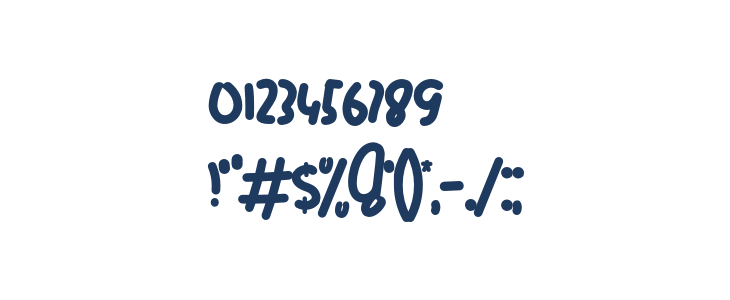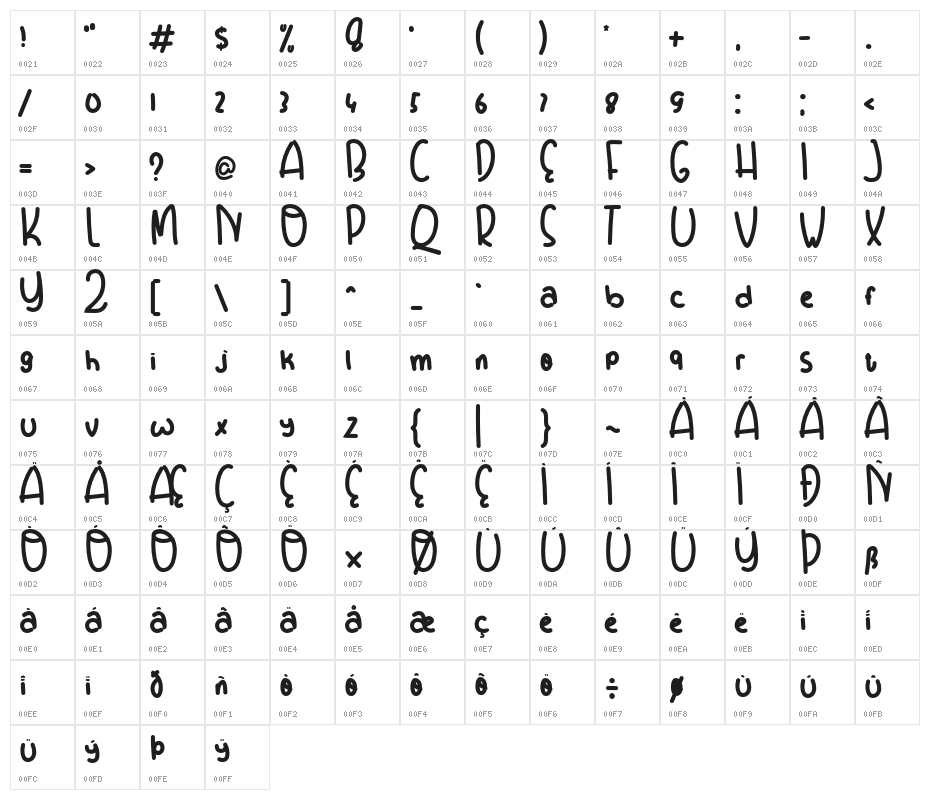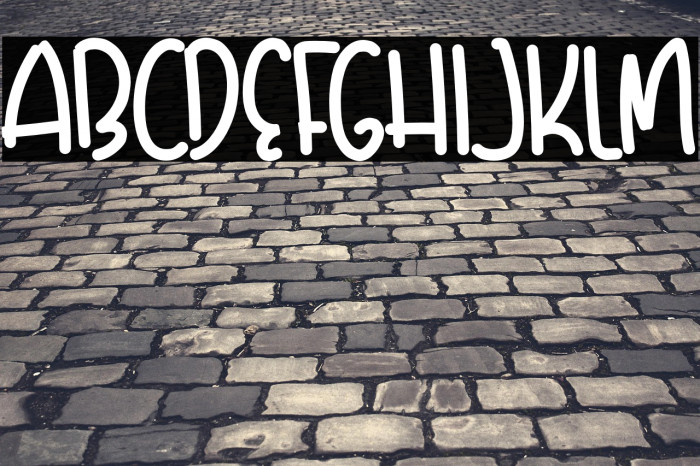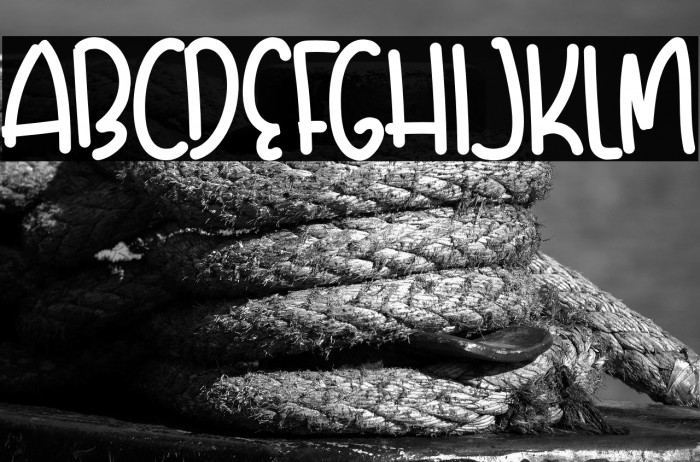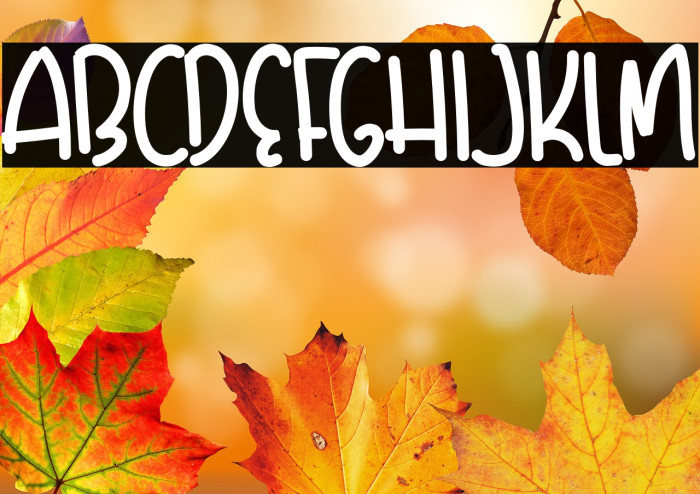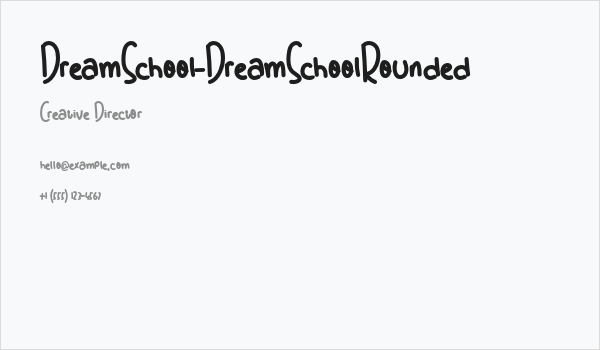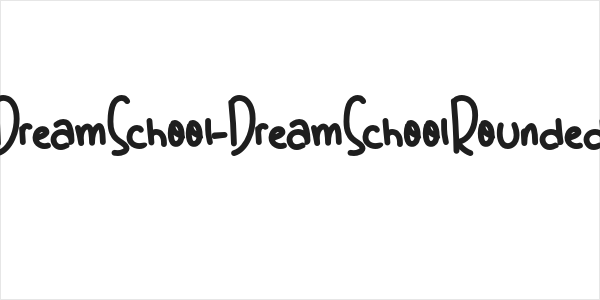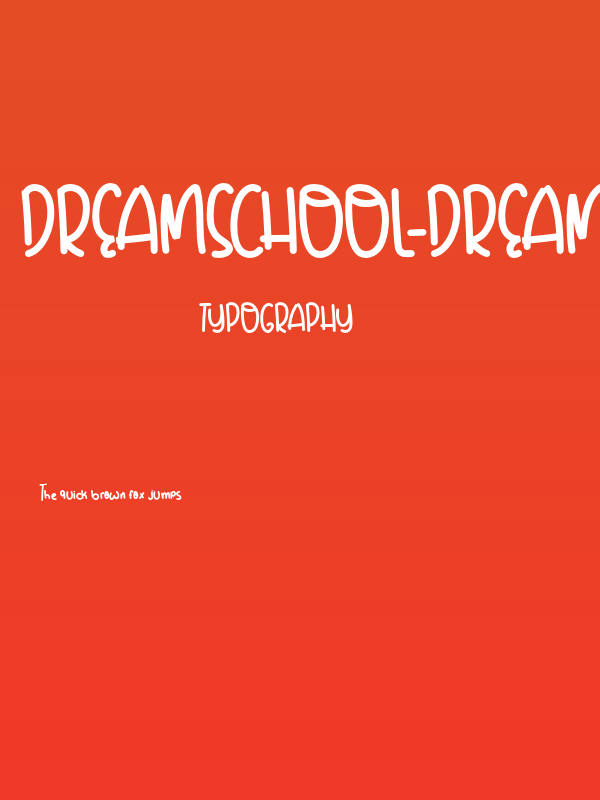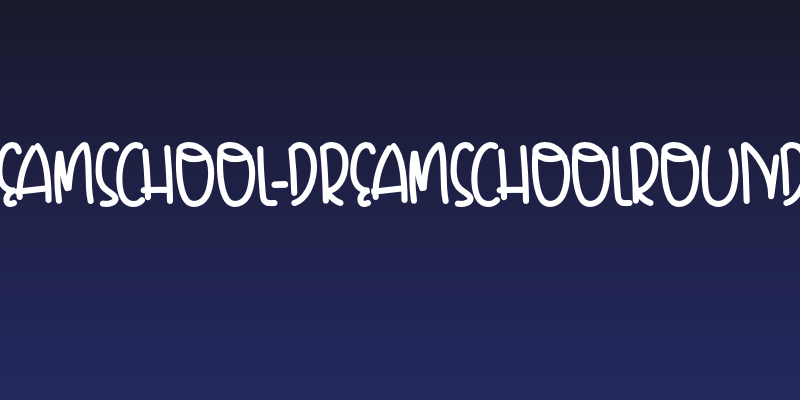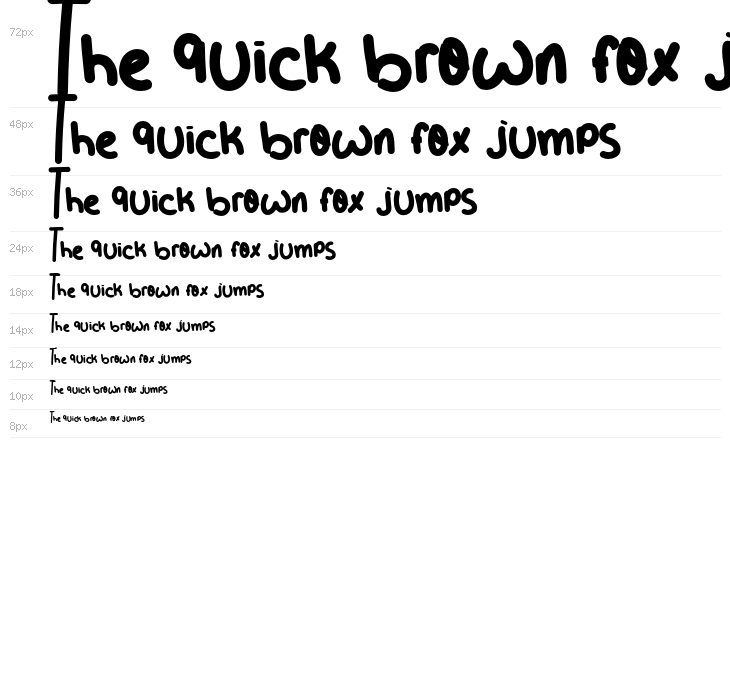
DreamSchool-DreamSchoolRounded Font
DreamSchool-DreamSchoolRounded Description
This playful and rounded font exudes a friendly and approachable vibe, characterized by its smooth curves and consistent stroke width. The letters are bold and slightly condensed, giving them a compact appearance while maintaining readability. The rounded edges contribute to a soft and inviting look, making it suitable for projects that aim to convey warmth and friendliness. The uniformity in stroke width ensures a balanced and cohesive appearance across all characters, including numbers and special symbols. Its casual style is perfect for informal settings, adding a touch of whimsy and fun.
| Proposed Projects | Ideal for children's books, playful branding, casual invitations, and educational materials. |